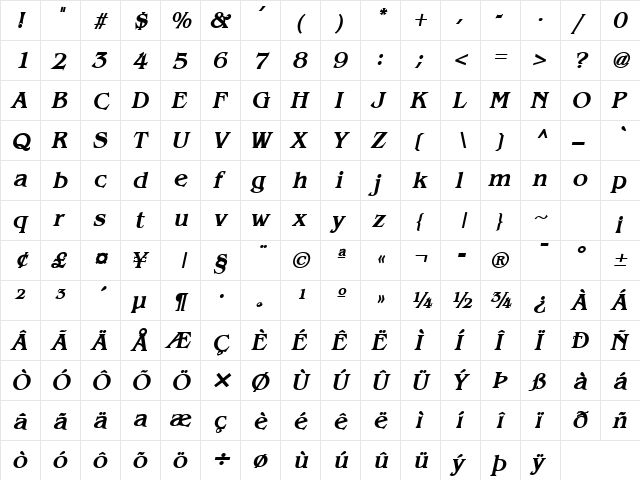
Bangle Bold Italic Font Preview
Design Context for Bangle Typeface
Bangle offers clean, dependable letterforms without strong stylistic allegiance, making it a practical choice for designers who need flexibility. Its italic angle brings a sense of urgency and motion to the letterforms. The heavy weight commands attention and anchors typographic hierarchies.
Pro Tip: Try Bangle for annotation and caption copy alongside an upright companion — the contrast in angle creates a dynamic but ordered typographic system.